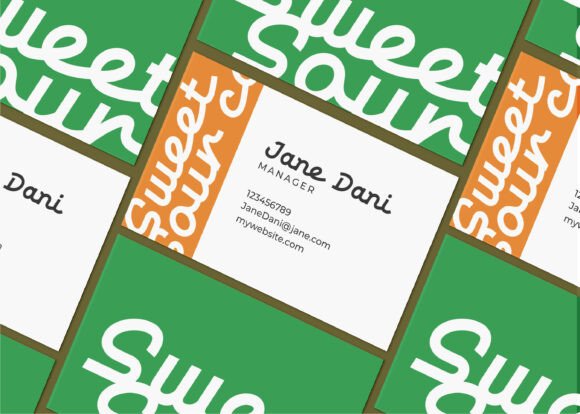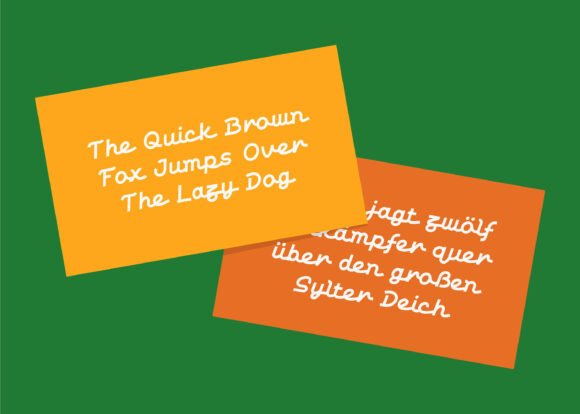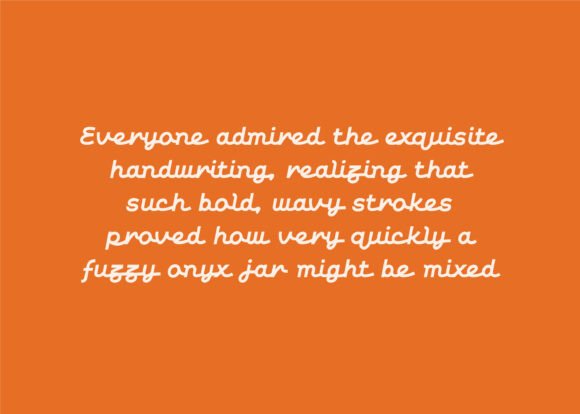
Introduction to Glantiq Font
Glantiq, a delightfully smooth and highly legible monoline script font that captures the charm of neat, effortless handwriting.
With its continuous, flowing strokes and warm, rounded aesthetic, Glantiq brings a friendly and personal touch to your designs without sacrificing readability .
Key Features of Glantiq Font
Why Choose Glantiq Font?